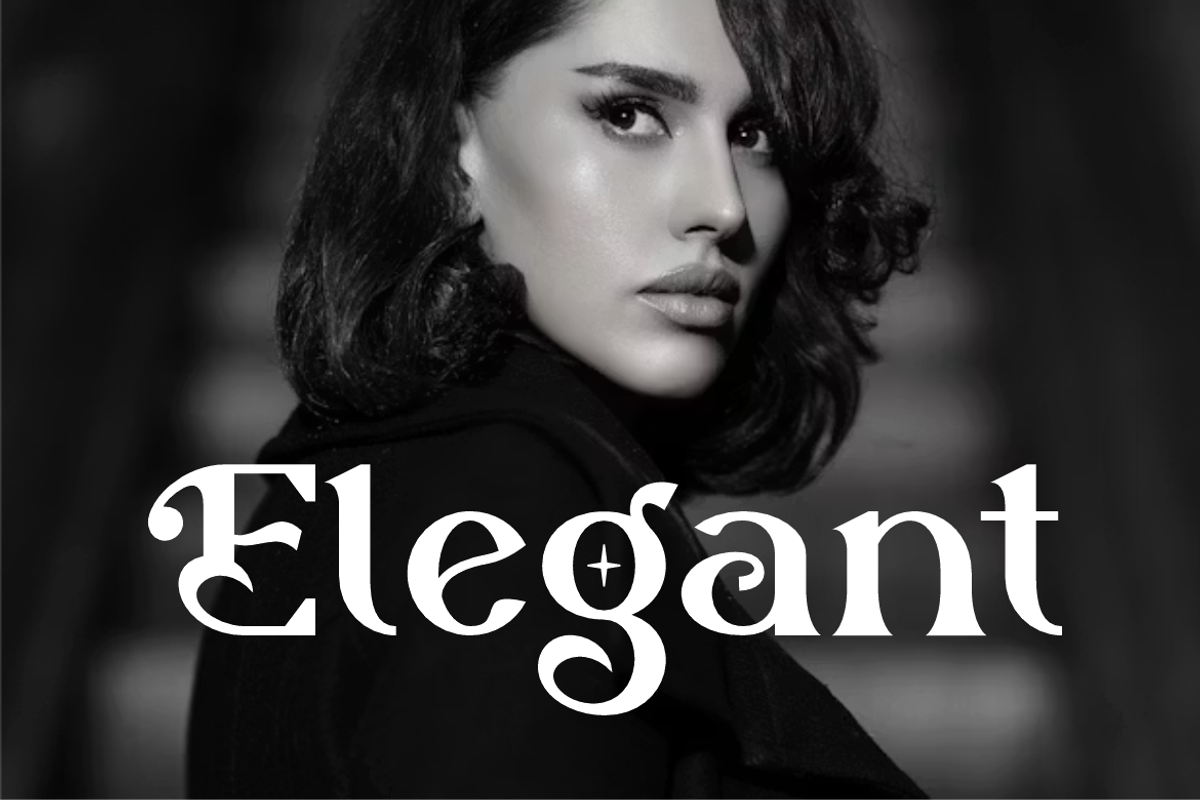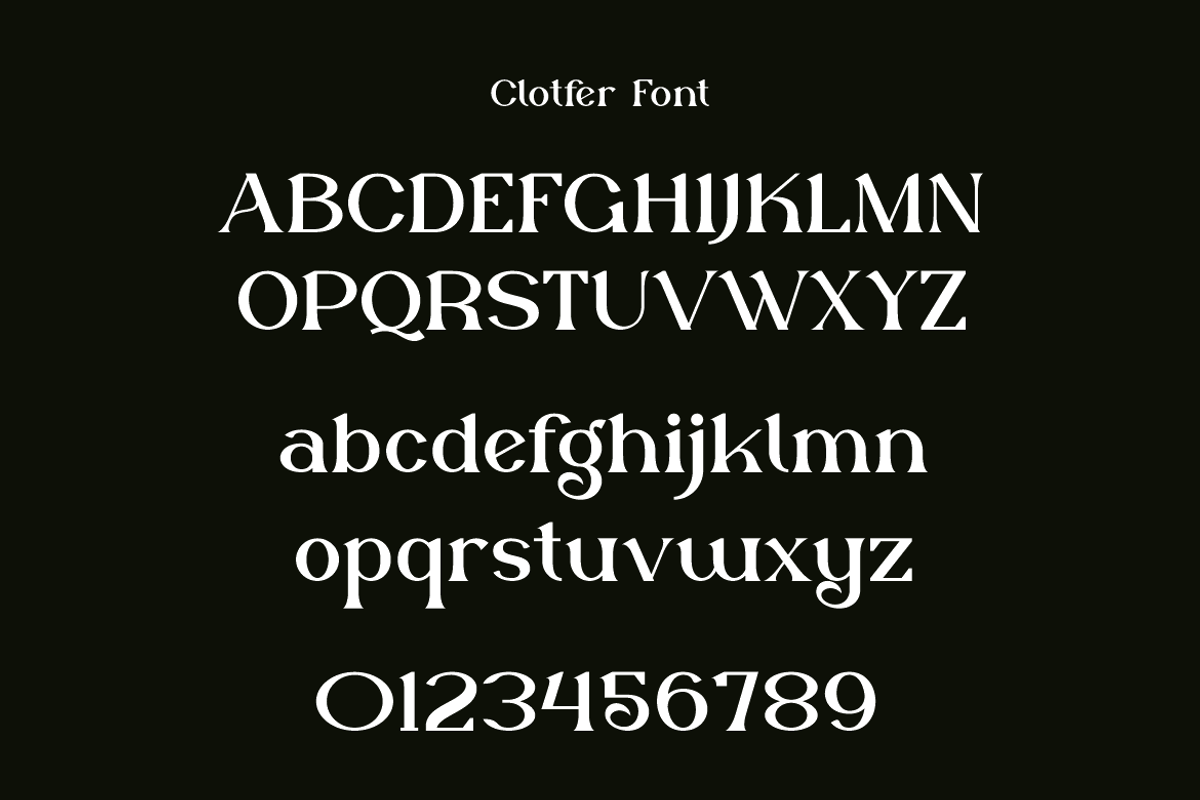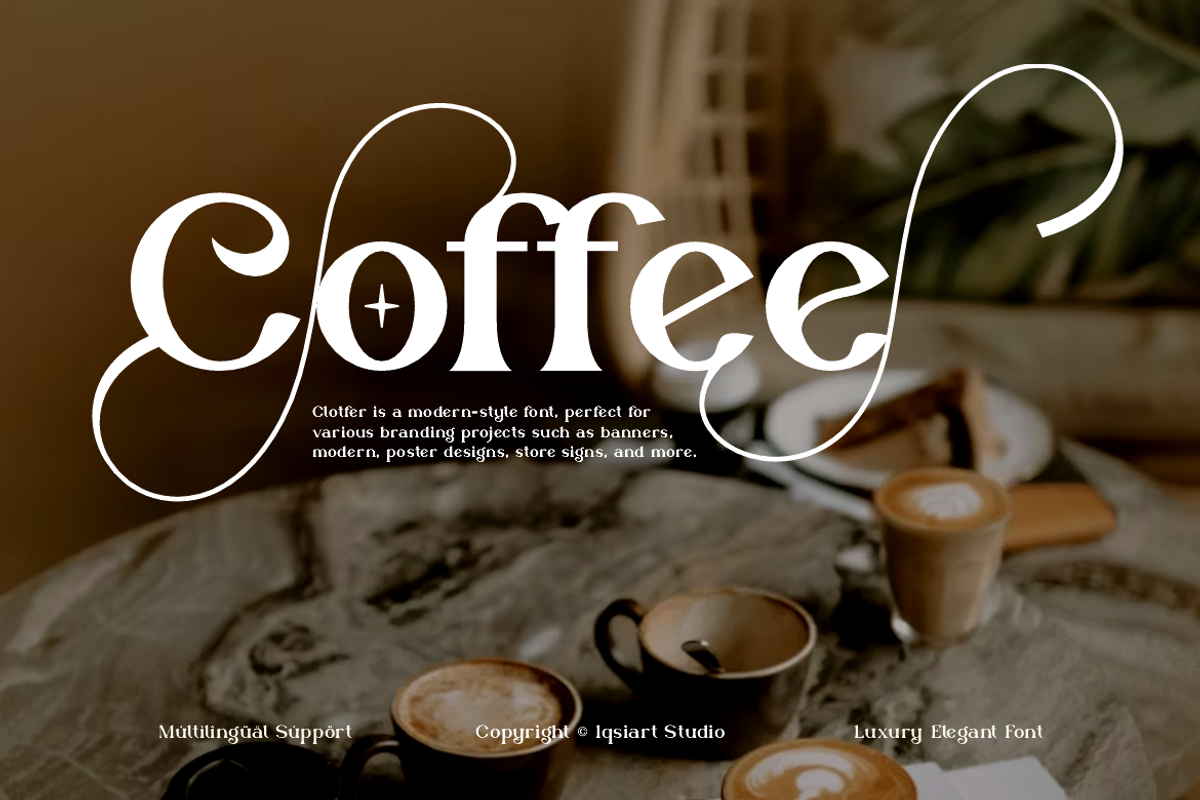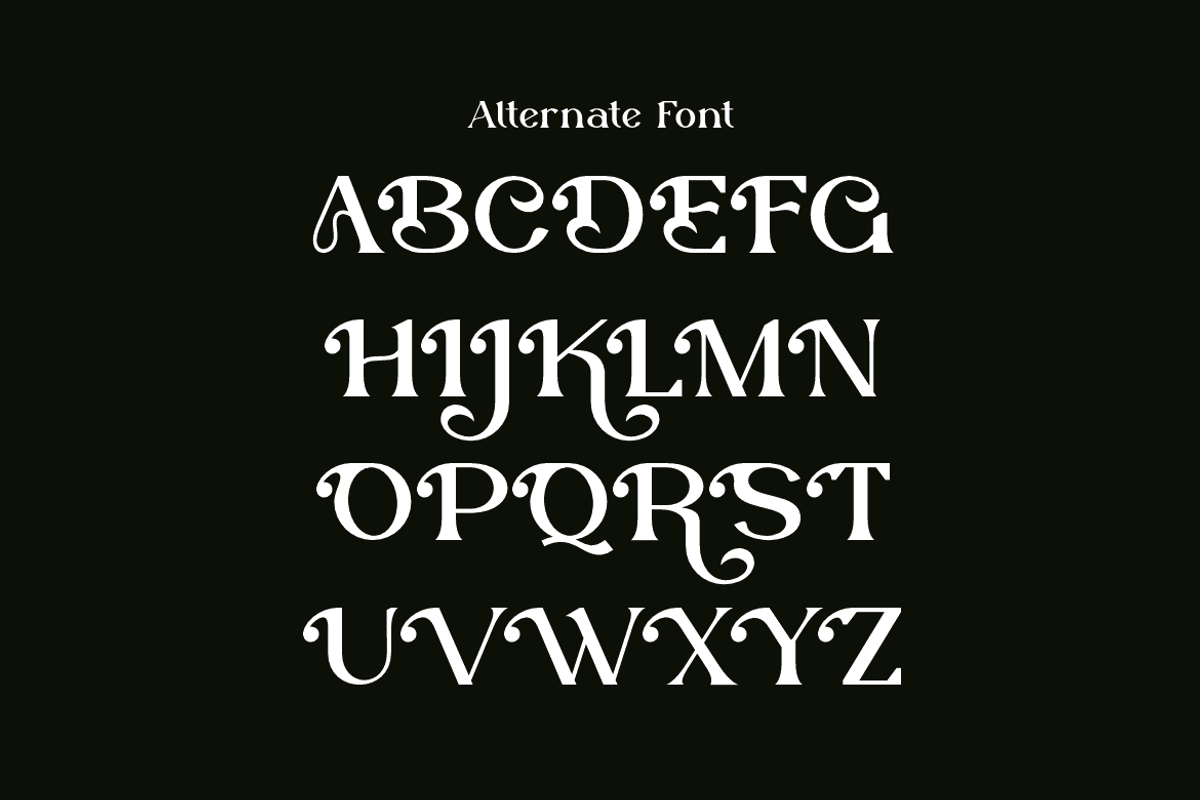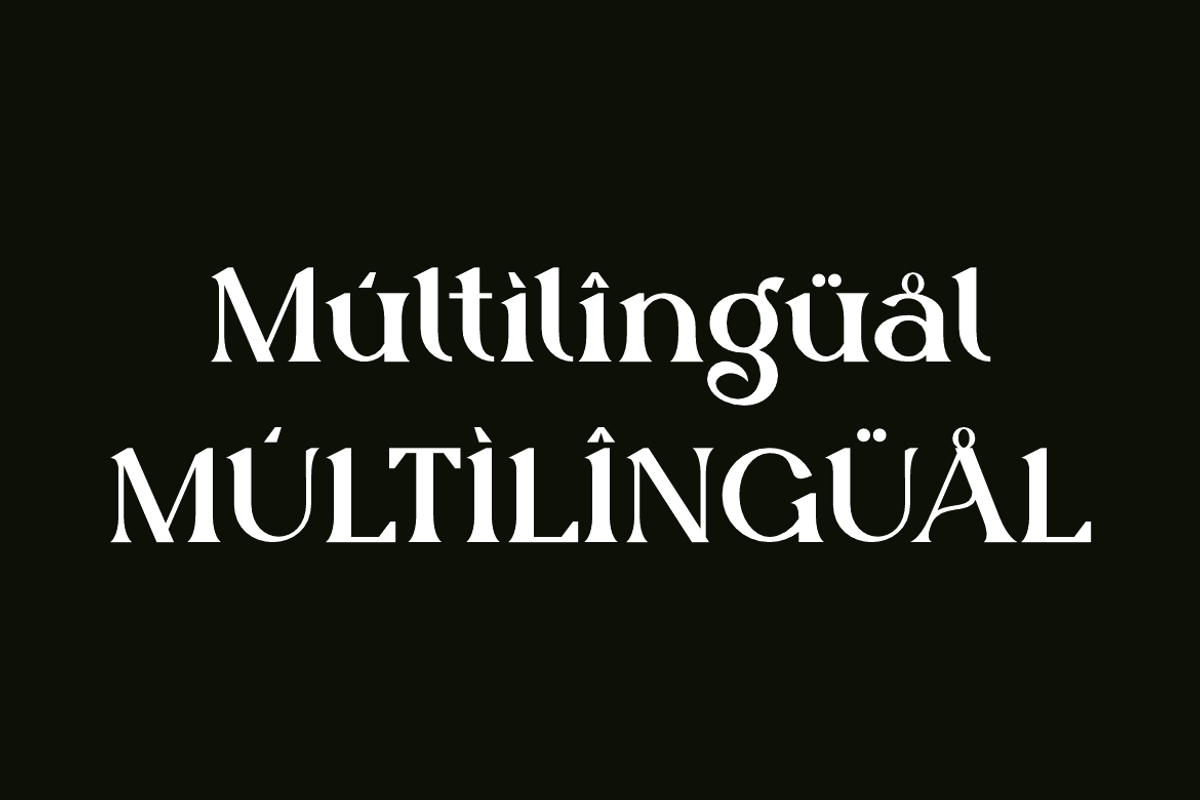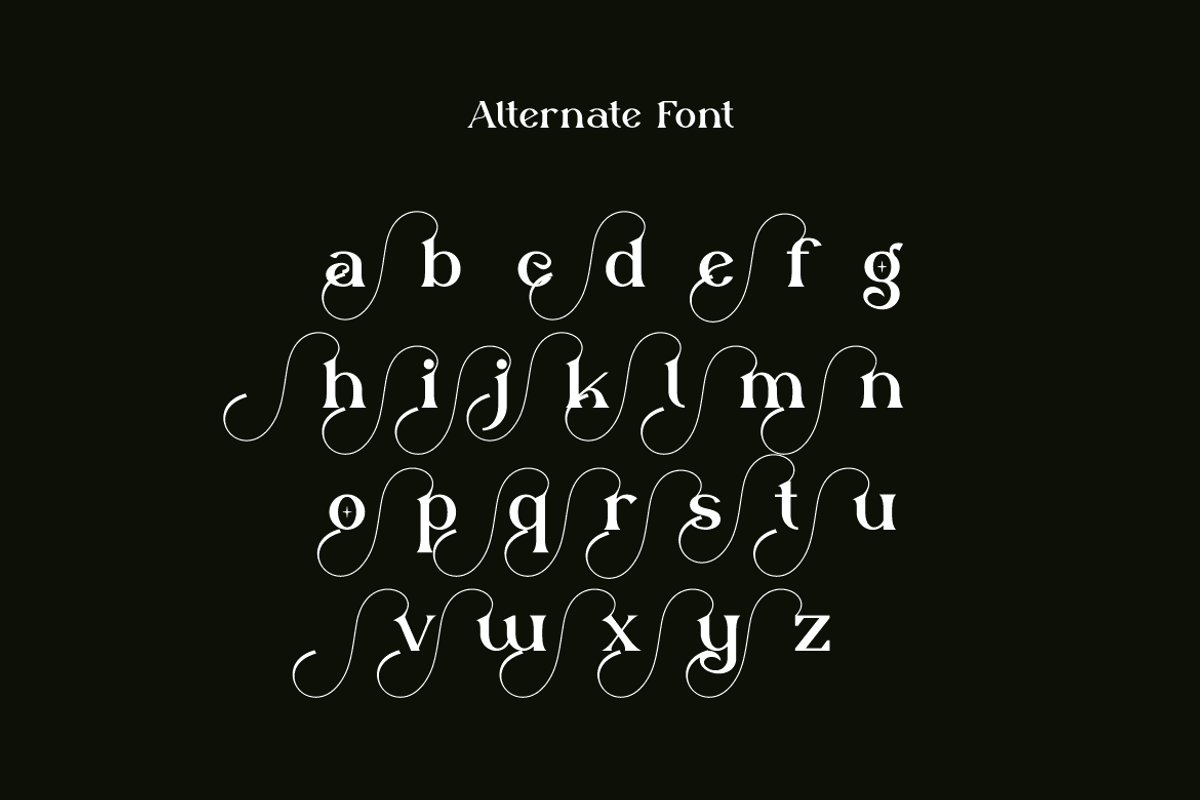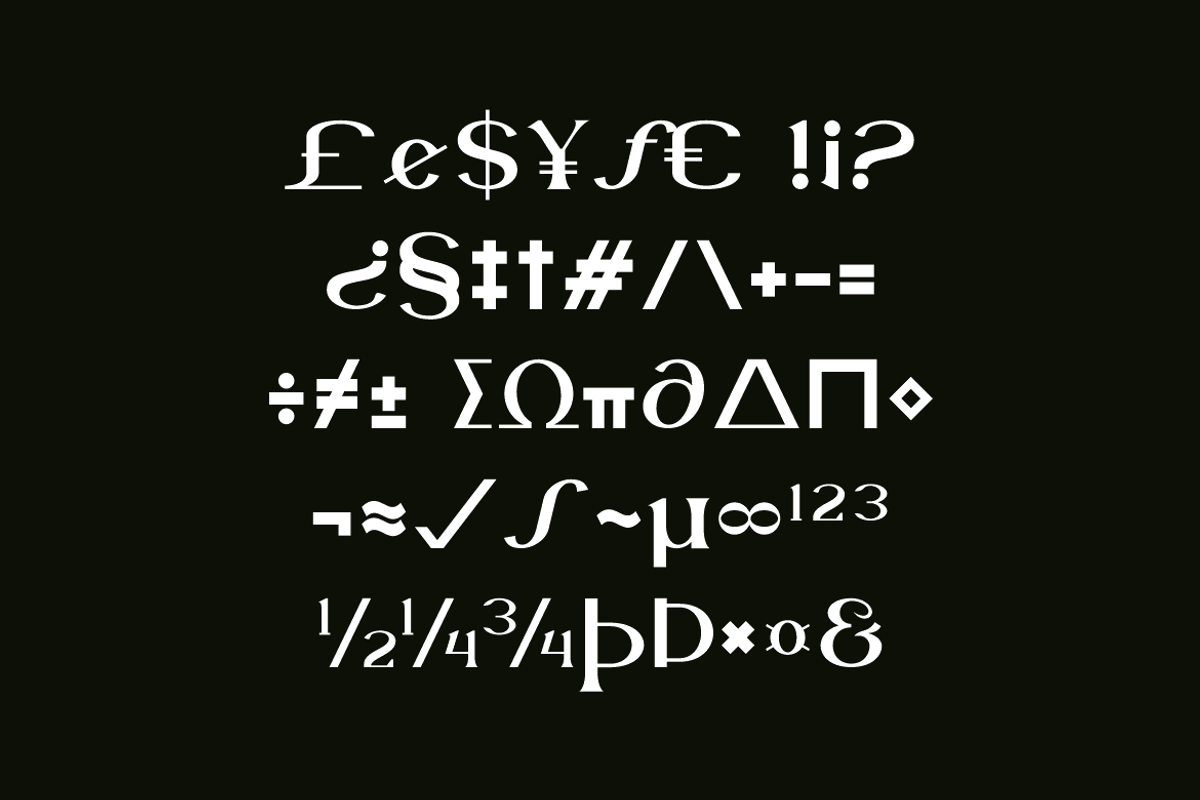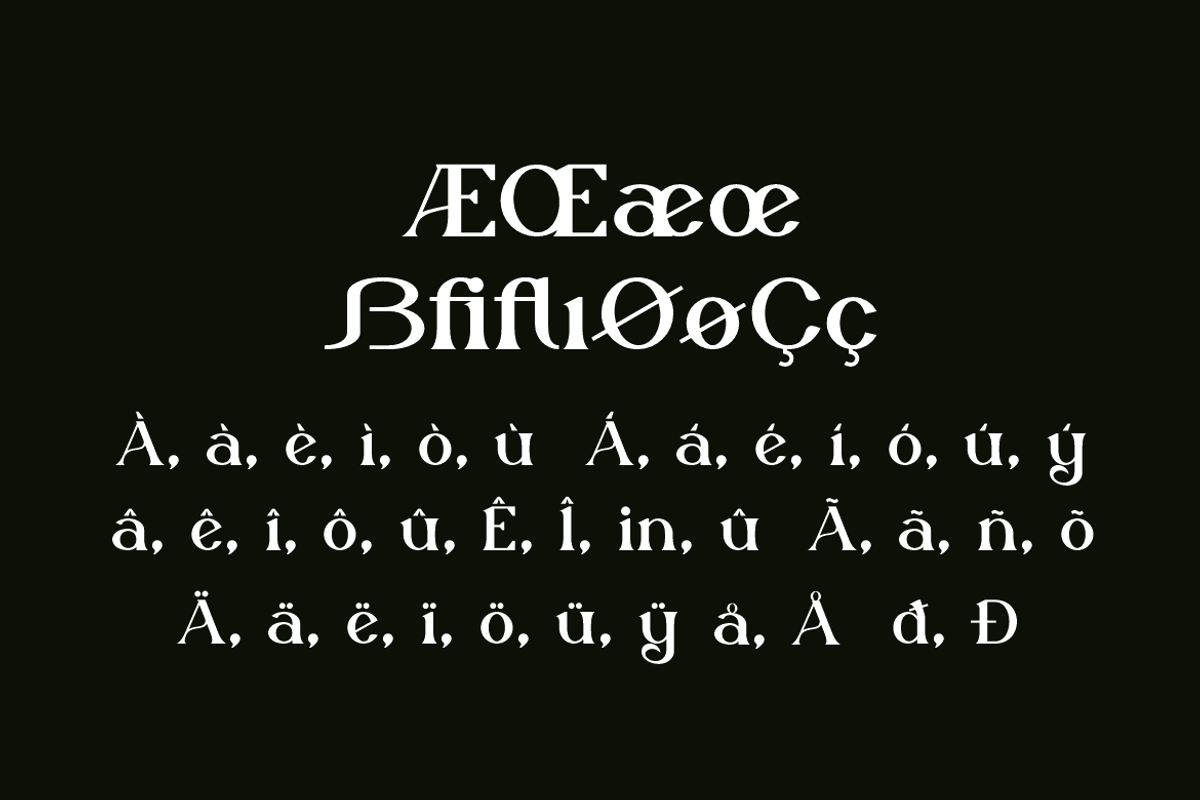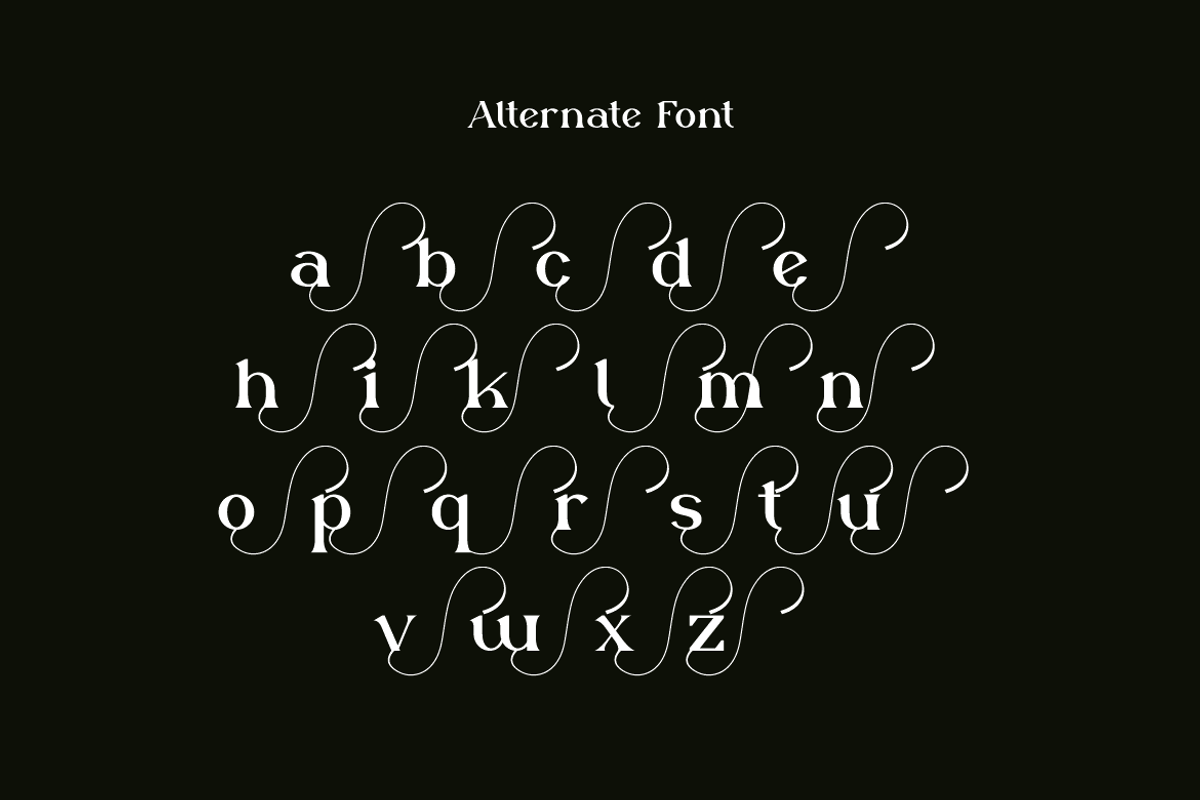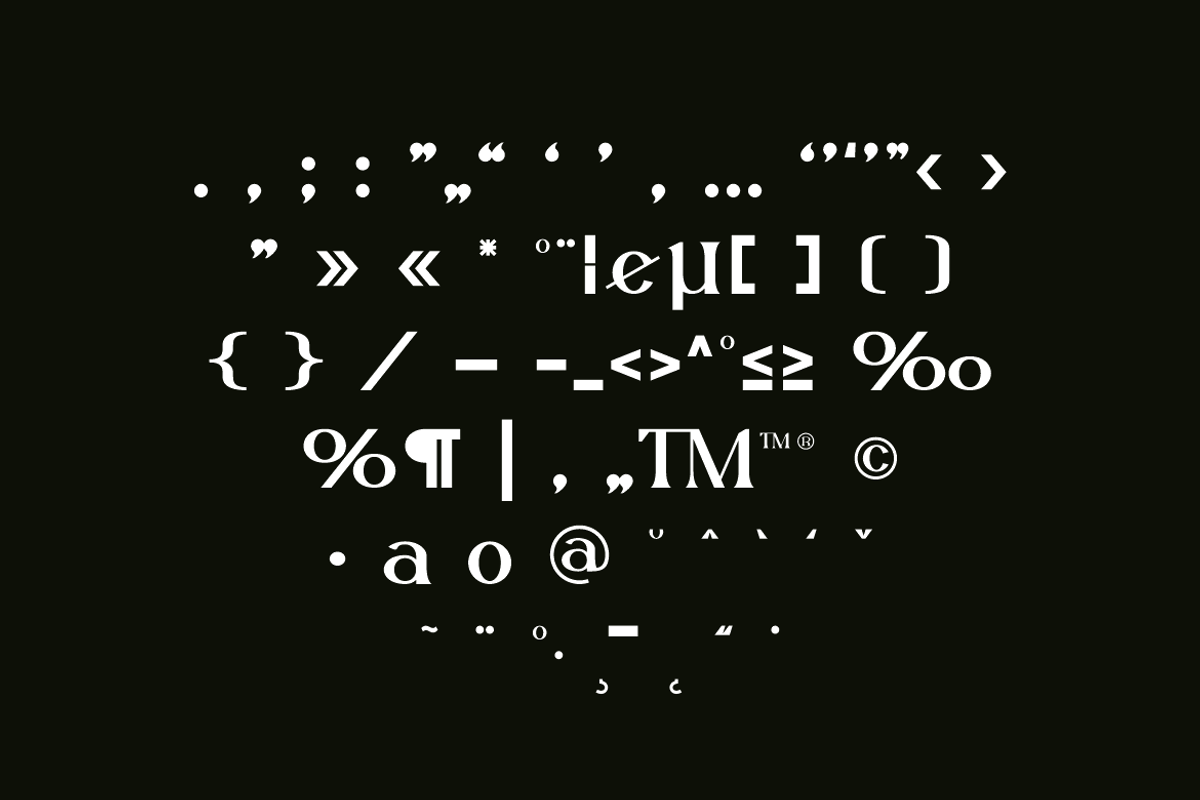
Clotfer - Modern Aesthetic Font
Clotfer Font is a serif and authentic display typeface
that suits a variety of design needs. We offer a wide range of themes